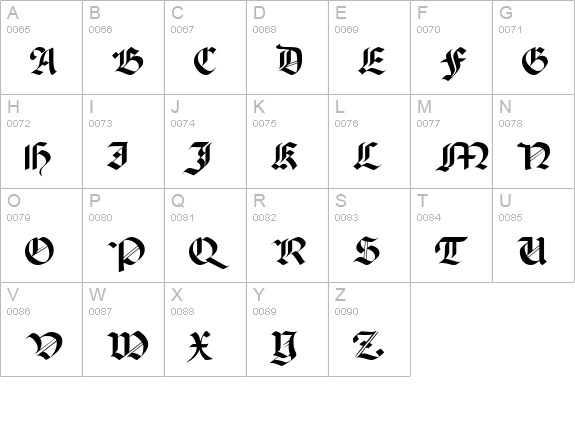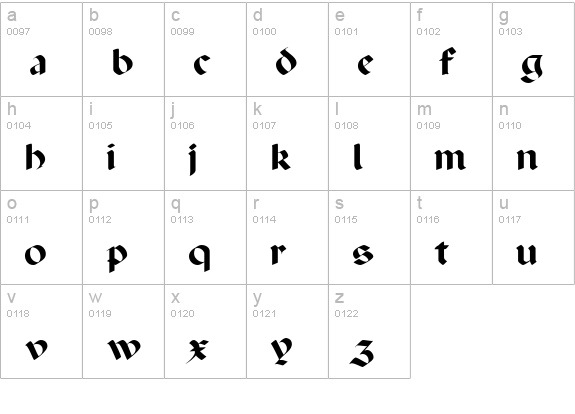
Ballista Display Script SSi Font Details
Ballista Display Script SSi font is a stunning display typeface that exudes elegance and sophistication. With its intricate details and flowing curves, this font is perfect for adding a touch of class to any project. Whether you're designing invitations, logos, or signage, Ballista Display Script SSi font is sure to make a statement. What sets this font apart is not only its beautiful design but also the fact that it is available for free download at FontsMarket.com. This means you can access this high-quality font without any cost, making it a valuable addition to your font collection. Don't miss out on the opportunity to enhance your designs with Ballista Display Script SSi font today.